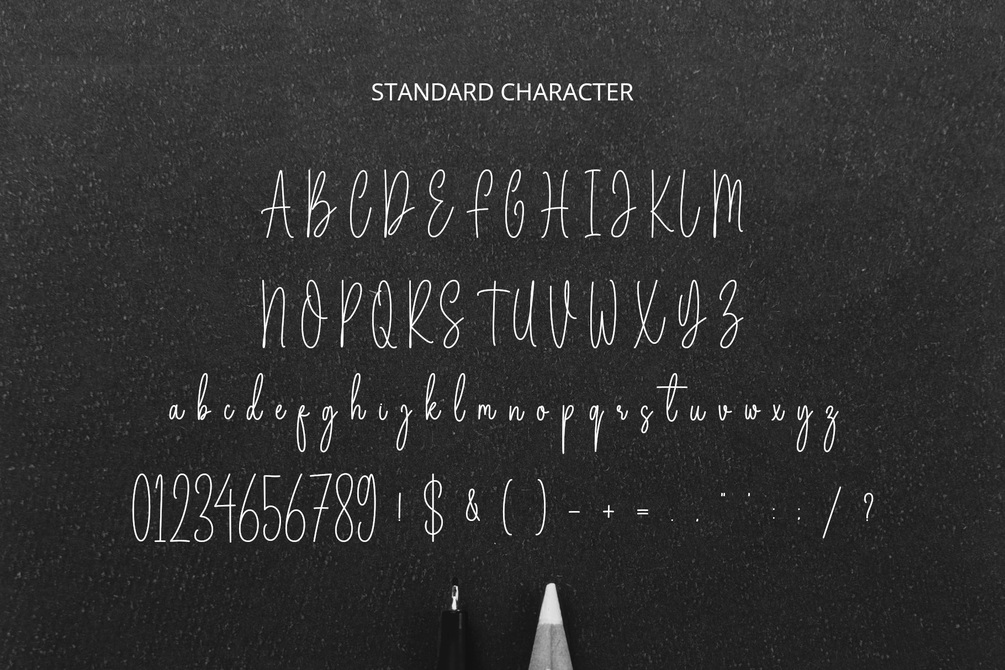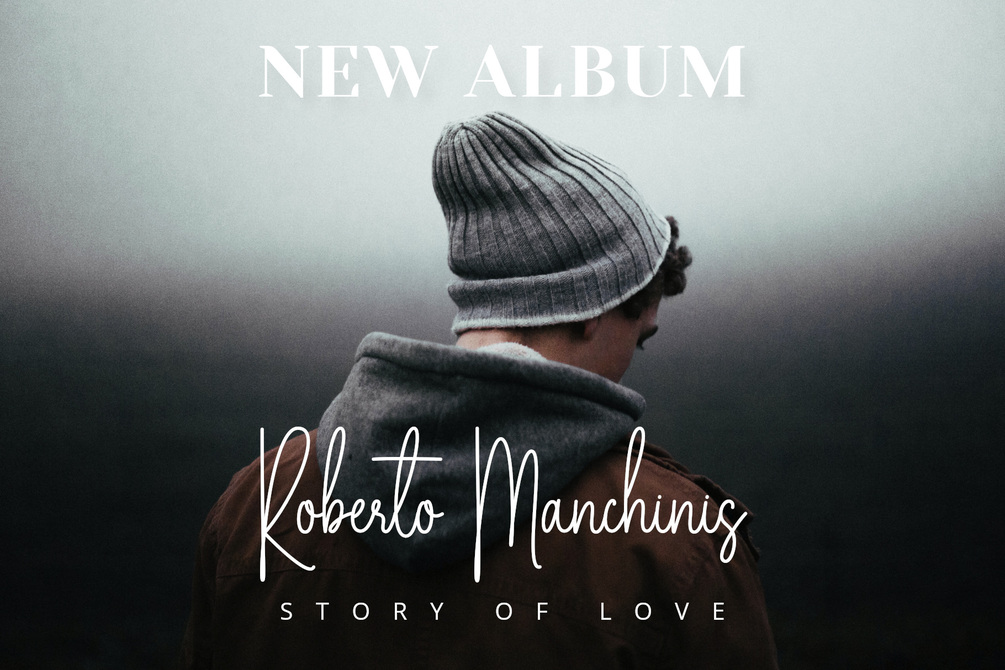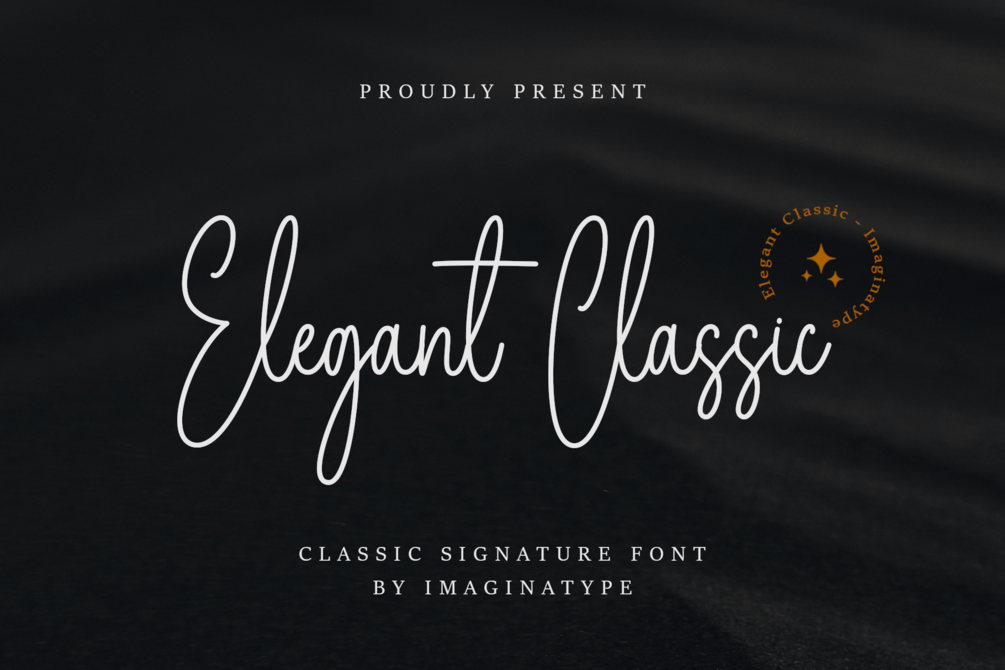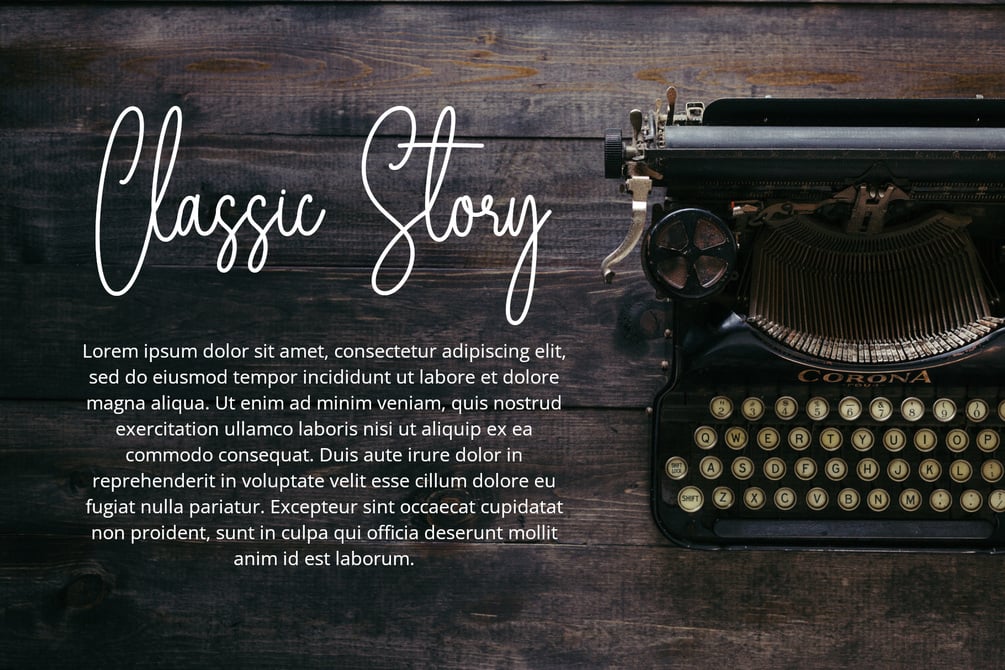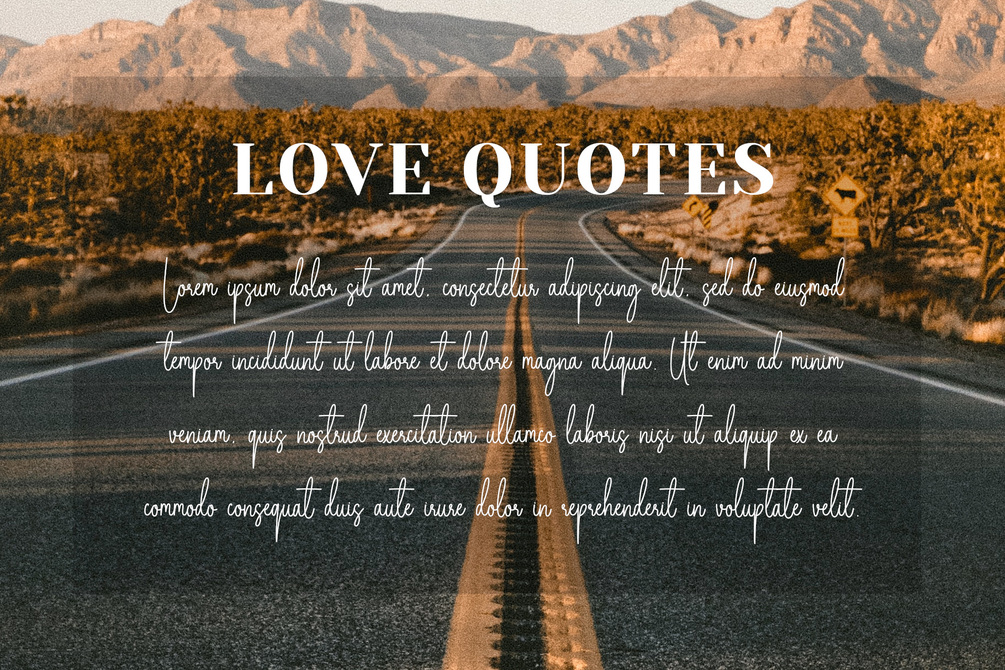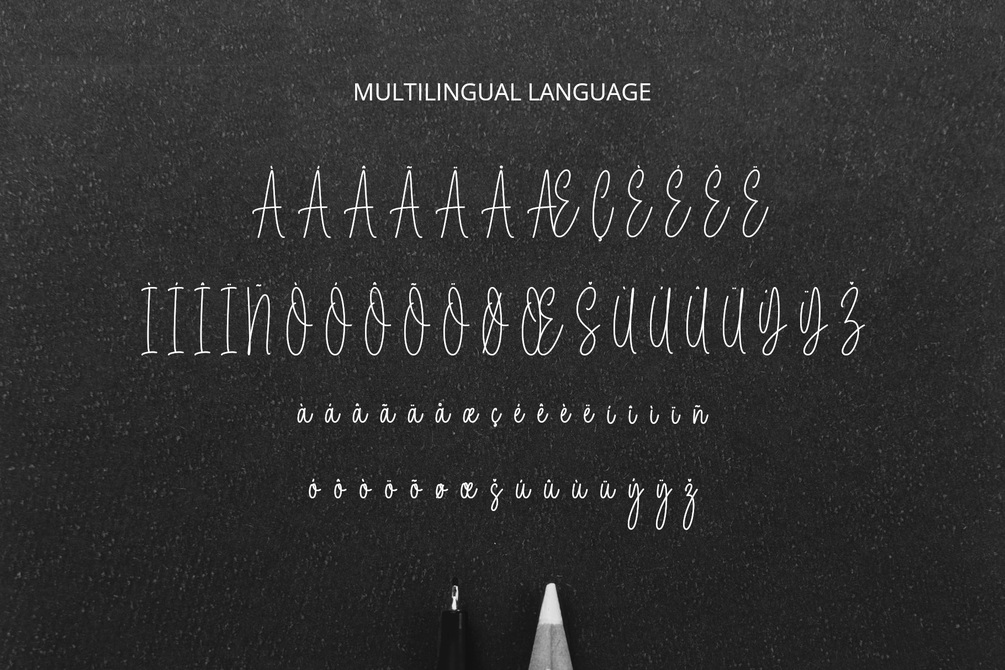
Elegant Classic Font
Elegant Classic Font is a timeless handwritten script font that embodies elegance and modern sophistication. Designed with a graceful, flowing style, its classic signature strokes bring a personal and luxurious touch to any project.
With carefully balanced curves and refined calligraphy elements, Elegant Classic Font is perfect for wedding invitations, signature logos, fashion branding, and modern packaging. Its handwritten character ensures each design feels unique, while its legibility makes it ideal for both print and digital use.
Whether you're working on upscale branding, calligraphy projects, or romantic event designs, this font elevates your visuals with a subtle charm and professional finish. Elegant Classic Font is a must-have for those who value classic beauty with a modern edge.